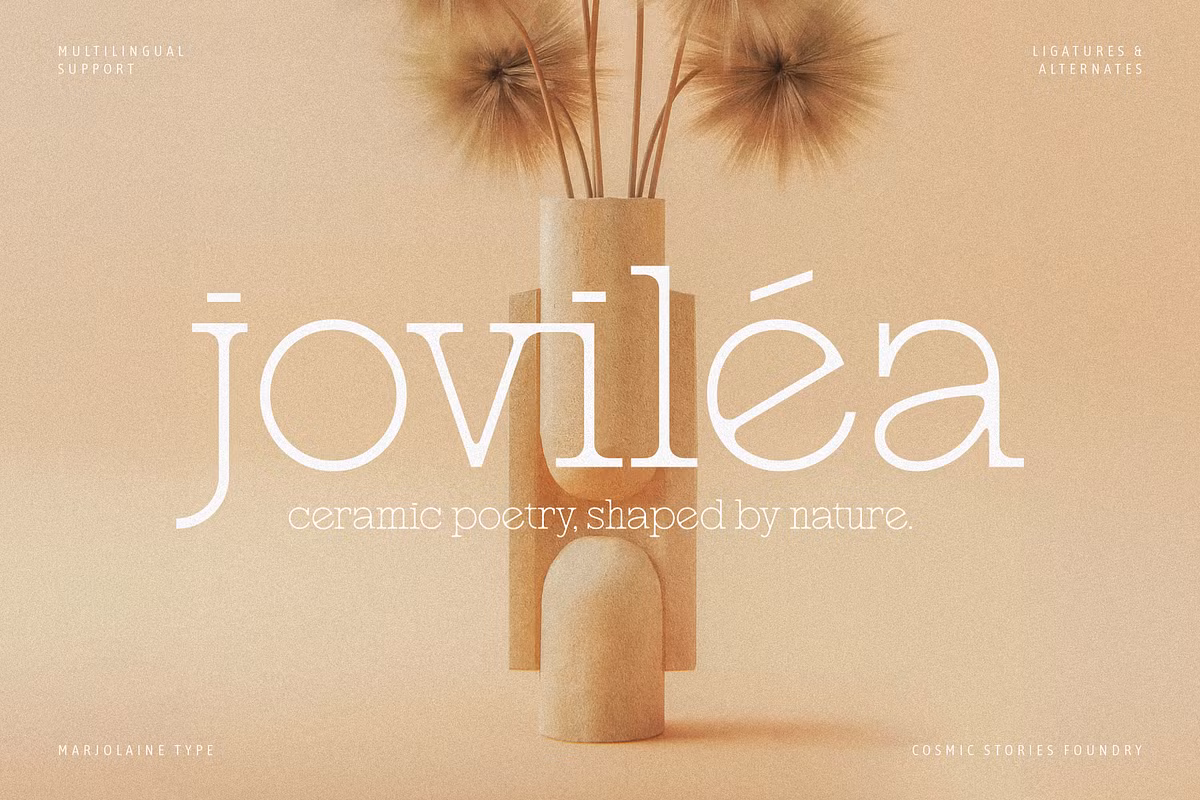
Marjolaine Type: Elegant Serif Typeface for Stylish Design
Introducing Marjolaine. When I use Marjolaine I see that Marjolaine feels elegant and has a typewriter vibe. Marjolaine sits between the look of a slab serif and the mechanical feel of a typewriter font. Marjolaine has proportions and clean lines. Marjolaine adds a balance of style and personality to any design project.
The design of Marjolaine makes Marjolaine stand out in the world of typography. I find Marjolaine useful. The smooth curves of Marjolaine and the subtle slab style of Marjolaine create a balance that feels easy to read and neat. The clean mechanical edge gives Marjolaine a feel so Marjolaine works well for many uses. Designers can use the Marjolaine font for a luxury brand or a modern editorial. The Marjolaine font shows charm and character that catches the viewer.
Characteristics of Marjolaine
- Elegant Proportions: I see the typeface has a structure. I see the typeface makes reading easier. I see the typeface keeps a look.
- Slab Features: Marjolaine uses subtle slab pieces. The subtle slab pieces add a bit of class. The subtle slab pieces stay low key. Do not overwhelm the design.
- Typewriter Influence: The typewriter design adds charm. The typewriter design brings warmth and familiarity.
Character Sets
Marjolaine is a typeface that looks nice and is very flexible. Marjolaine comes with 58 ligatures and the set of characters. Marjolaine gives you ways to arrange letters. The large set of characters lets you make designs that’re unique and stand out. I use Marjolaine for my projects.
Multilingual Support
One of the features of Marjolaine is the support. Marjolaine supports Western, Central and Southeastern European languages. The multilingual support lets designers reach an audience while keeping quality and style. I have seen designers use Marjolaine to reach people without losing quality or style.
Marjolaine works in many of the design projects you may have. Marjolaine can be used for a range of the design tasks. Here are some good ways to use Marjolaine typeface:
- Luxury Branding: I have tried Marjolaine. I notice the design. The effect is clear. Marjolaine works well for the luxury brands that want a lasting impression.
- Fashion Editorials: The typeface has a look. The typeface makes fashion publications look better. The typeface adds elegance to headlines. The typeface adds elegance to the body text well. The typeface brings a sense of style to every page.
- Minimalist Packaging: Marjolaine’s clean lines and refined aesthetics work beautifully in minimalist packaging designs, creating an upscale look.
- Modern Web Design: I like the typeface. The typeface reads well. Has charm. The typeface is a choice for websites that want a look.
- High-End Stationery: I see high-end stationery improve when Marjolaine adds style to the stationery designs, for the invitations, the business cards, or the letterheads. High-end stationery looks better with Marjolaine.
I think pairing fonts matters for the design. I have seen Marjolaine work well with matching typefaces for a design. Here are some suggestions:
- Sans-Serif Fonts: Pair Marjolaine with a clean sans-serif like Montserrat or Helvetica for a modern, balanced look.
- Other Serifs: I combine serifs with a traditional serif, like Playfair Display. The other serifs and Playfair Display form the hierarchy.
- Script Fonts: I recommend pairing Marjolaine with a script font for a style. The script font adds a touch to your designs.
Marjolaine is more than a typeface. Marjolaine brings the look, the style, and the practical use. I have tried Marjolaine. I find Marjolaine easy to use. Marjolaine mixes the serif look with the typewriter feel. Marjolaine works well for design jobs from high-end branding to modern websites. Marjolaine includes the set of letters, supports languages, and pairs easily with other fonts. Marjolaine adds value to the designer’s tools. Marjolaine can help you make standout logos or cool headlines. Marjolaine makes a design feel more personal and appealing.